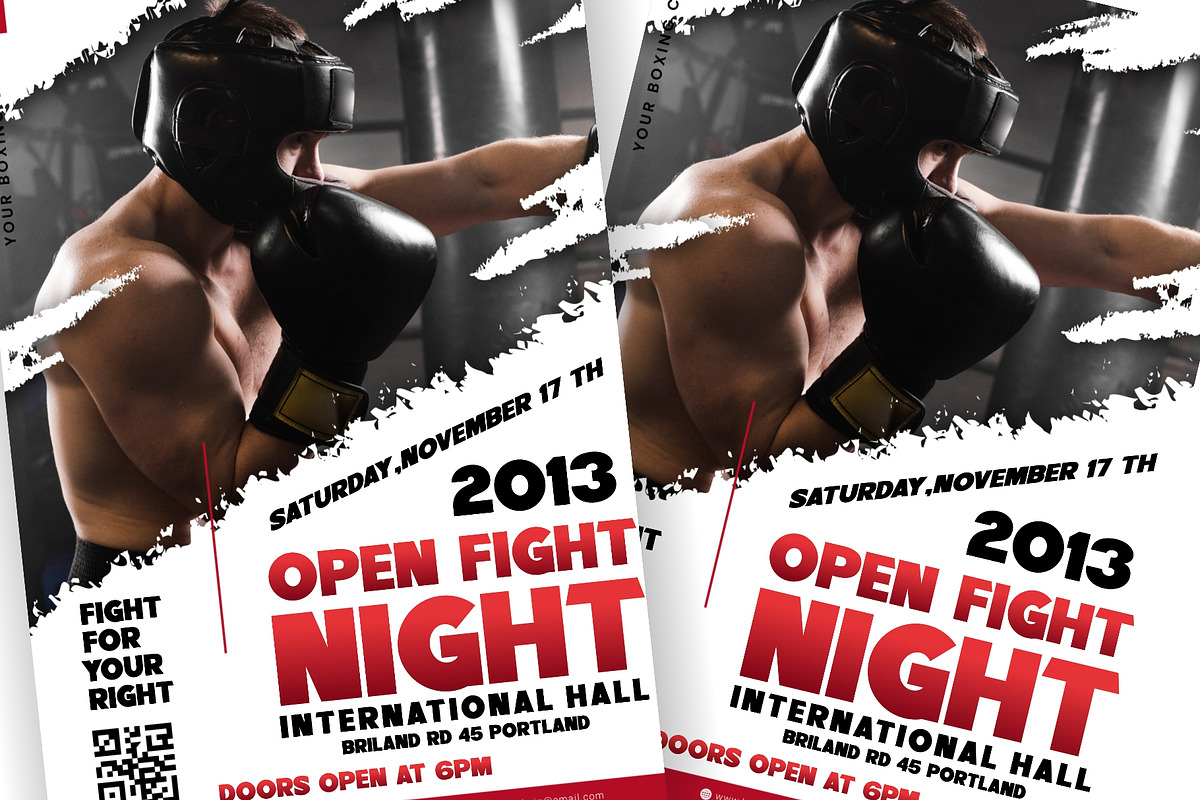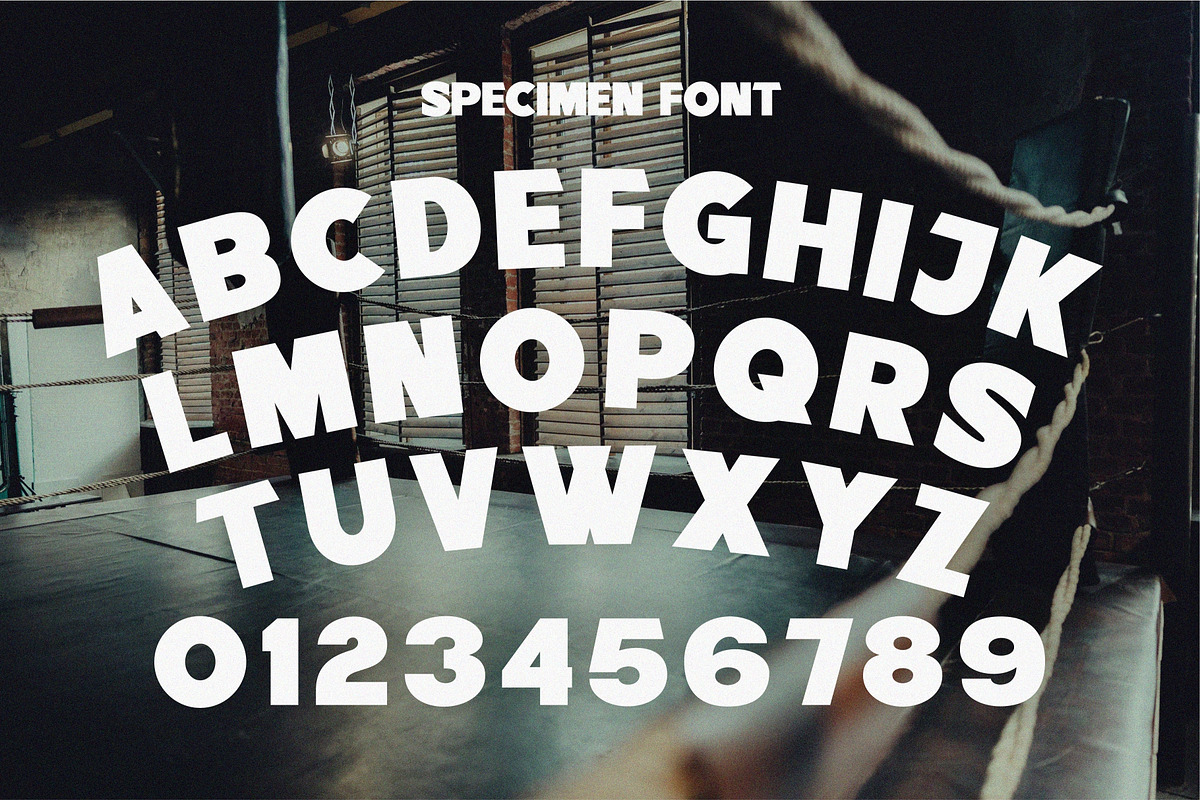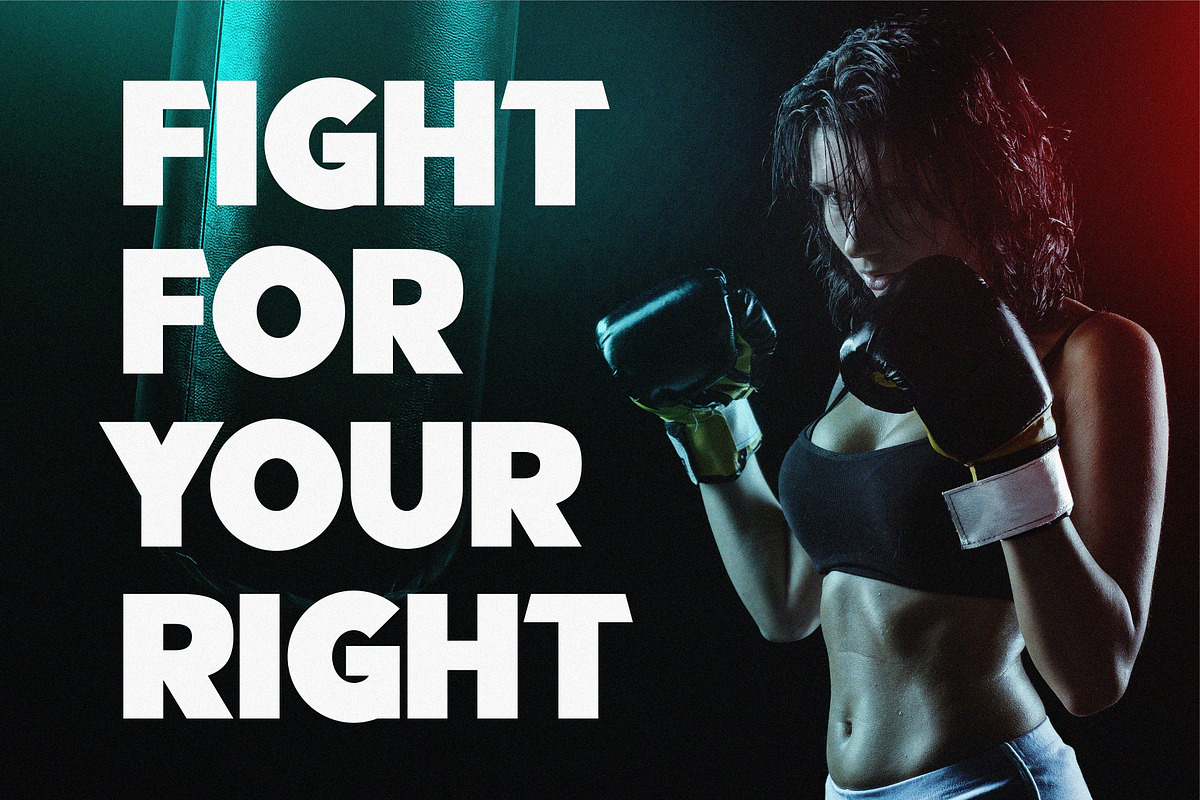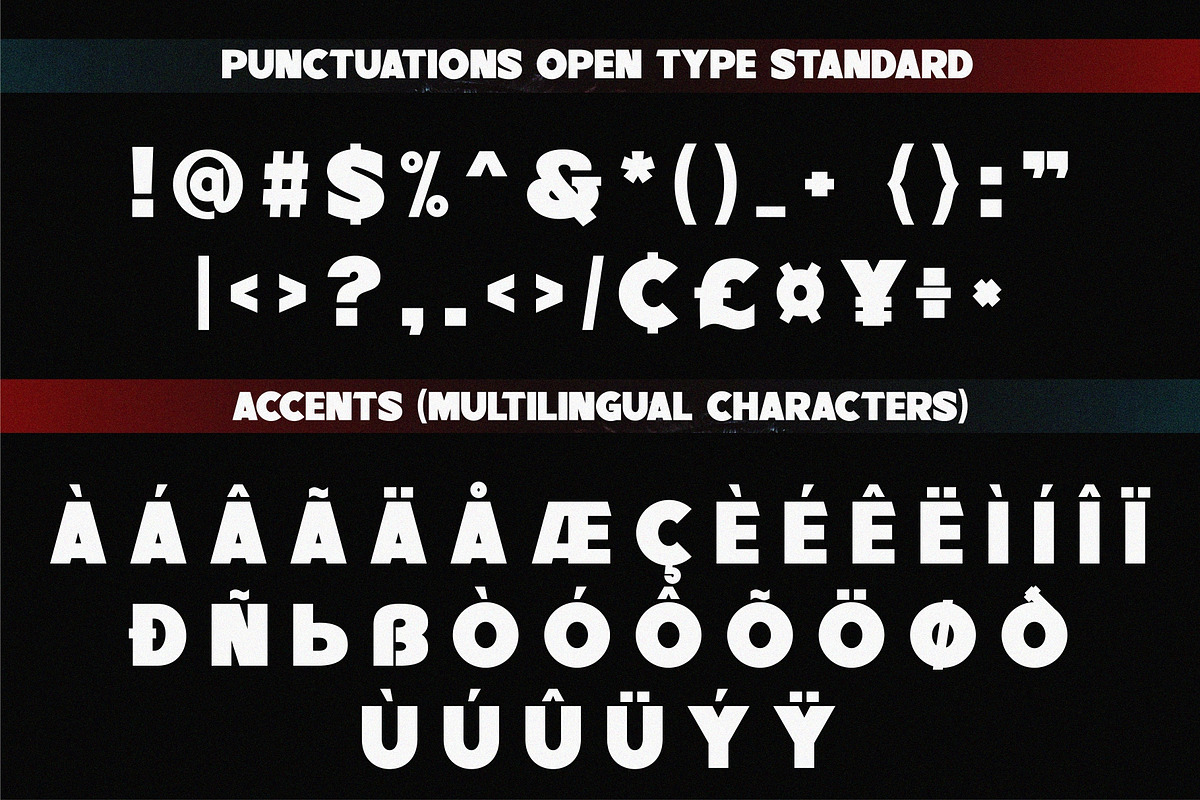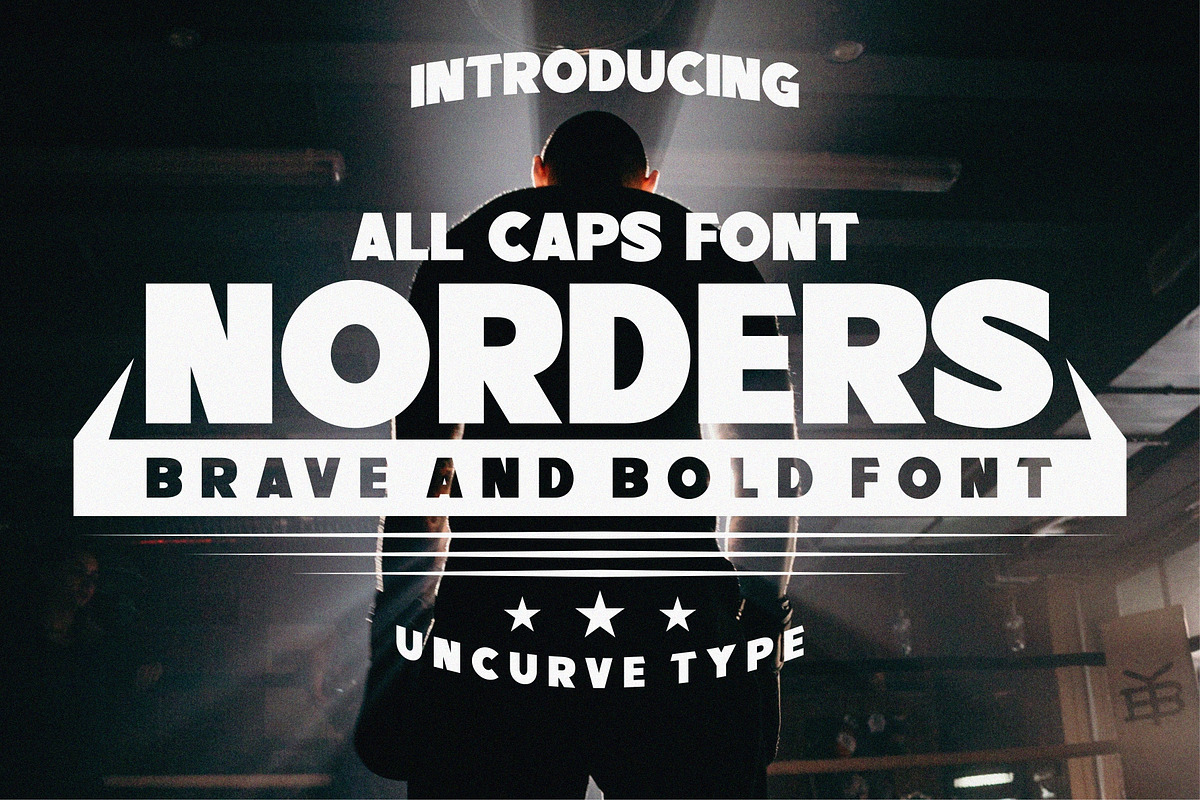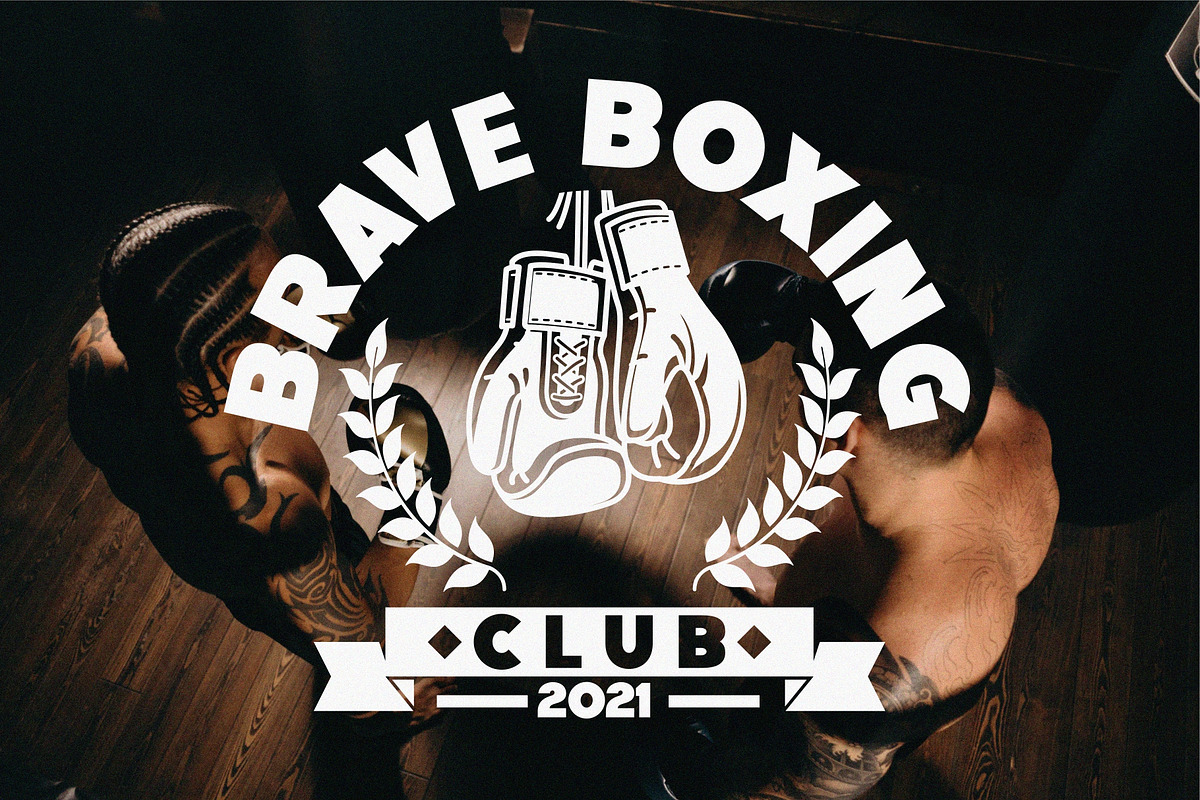
Norders
Introducing Norders a font that embodies modernity, cleanliness, boldness, and bravery.
Tailored to meet the demands of contemporary design, Norders is a versatile typeface that seamlessly integrates into various creative realms, making it an ideal choice for all your branding and design needs.
With its clean lines and bold presence, Norders commands attention, making it suitable for a wide array of projects. From dynamic sport branding to sleek clothing labels, Norders adds a touch of modern sophistication that leaves a lasting impact.
Picture Norders gracing a movie screen, elevating titles and credits with its bold and brave demeanor. Transform posters, invitations, and social media posts into visual statements that capture the essence of modern design. Its versatility extends to studio branding, gigs, and album covers, allowing your projects to stand out in the crowded creative landscape.